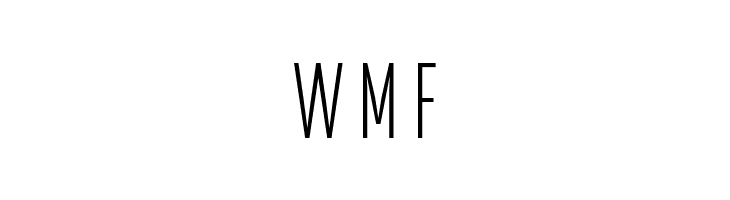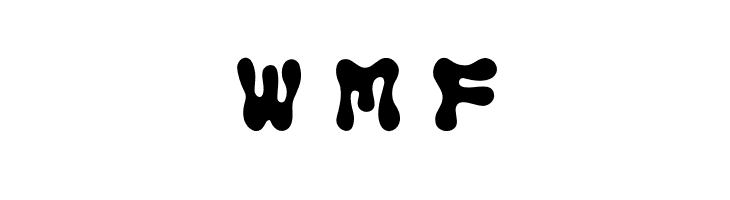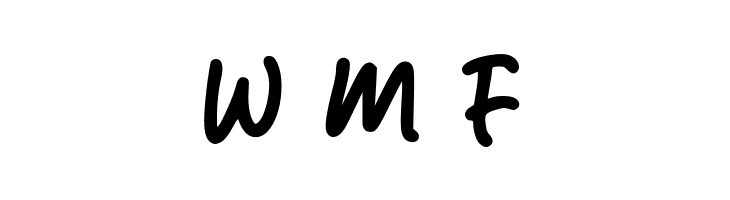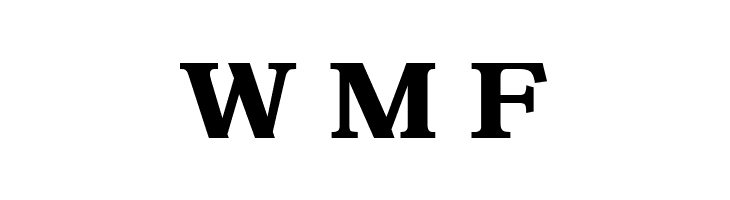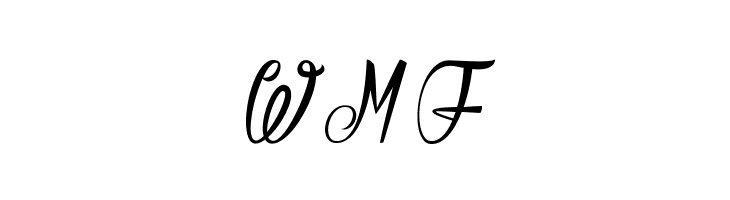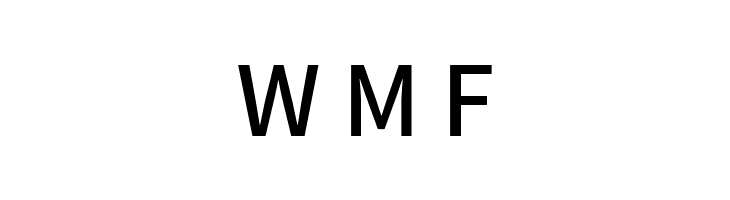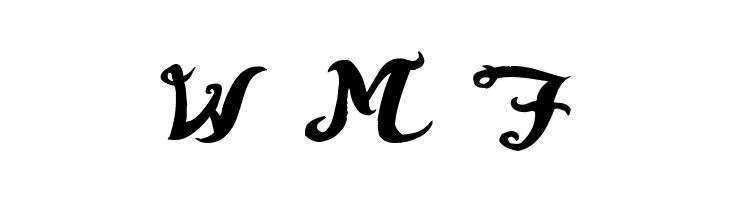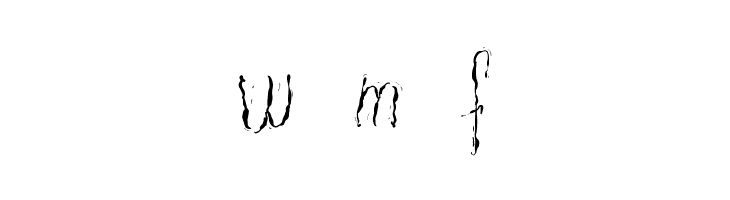
• Assistant SemiBold
A clean, modern sans-serif typeface with semi-bold weight and excellent readability.
• assperiments
A decorative, hand-drawn font with a distressed, textured effect.
• Asswipe
• Aster1
• Astloch Regular
A decorative font with ornate loops and curls, offering a whimsical and artistic flair.
• Atelier Omega
A sophisticated and elegant script font with ornate uppercase letters and smooth, readable lowercase letters.
• Attentica4F-UltraLight
An ultra-light, tall, and narrow font with a modern, minimalist style.
• Augustinne demo Regular
An elegant, cursive handwritten font with a fluid and artistic style.
• Aurell
A bold, handwritten font with a playful and dynamic style.
• AURORA PRO
A bold, playful font with a bubbly, organic design.